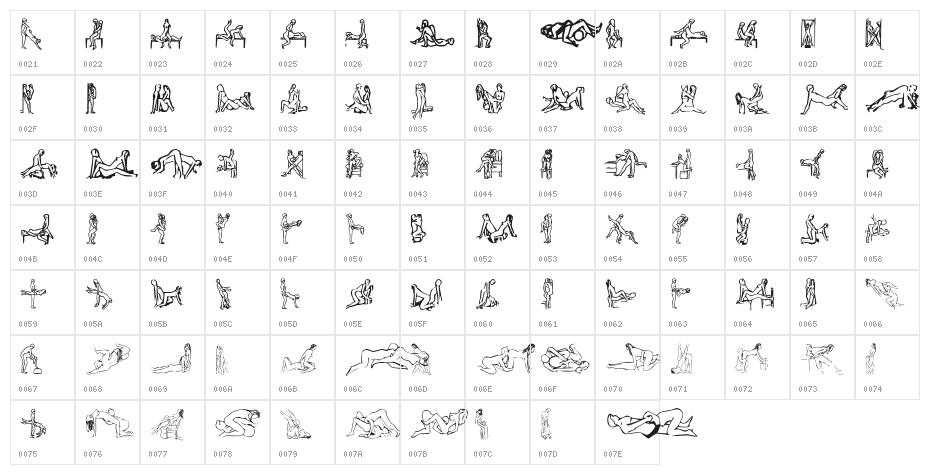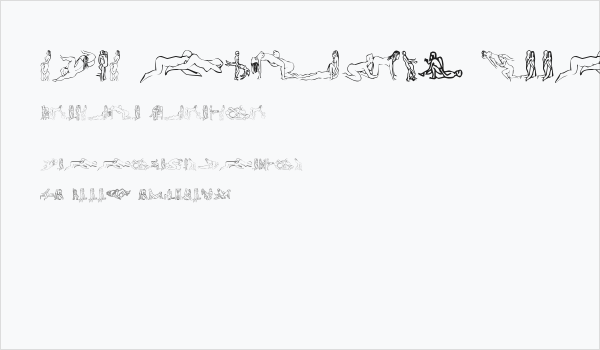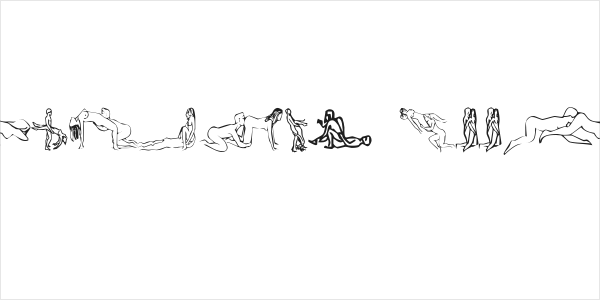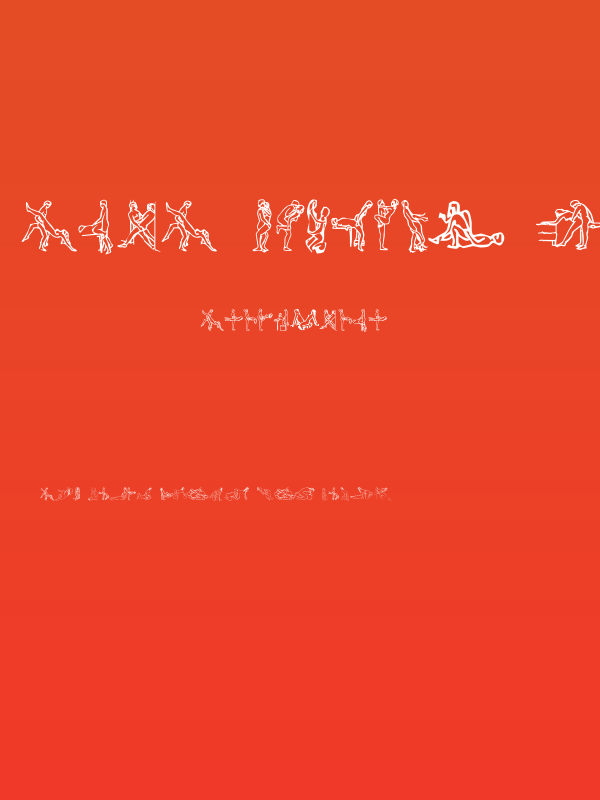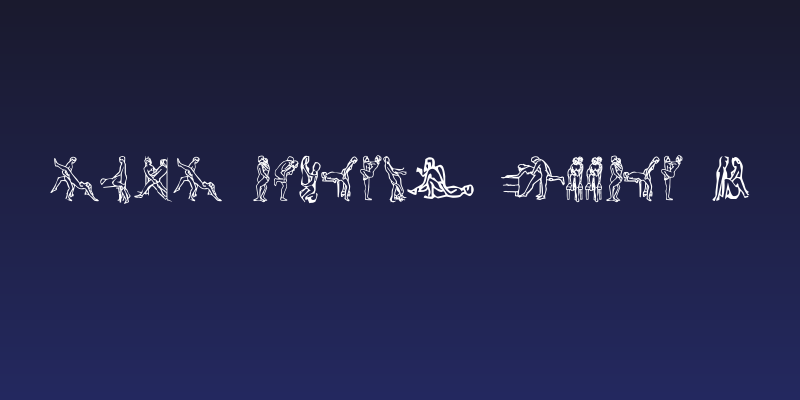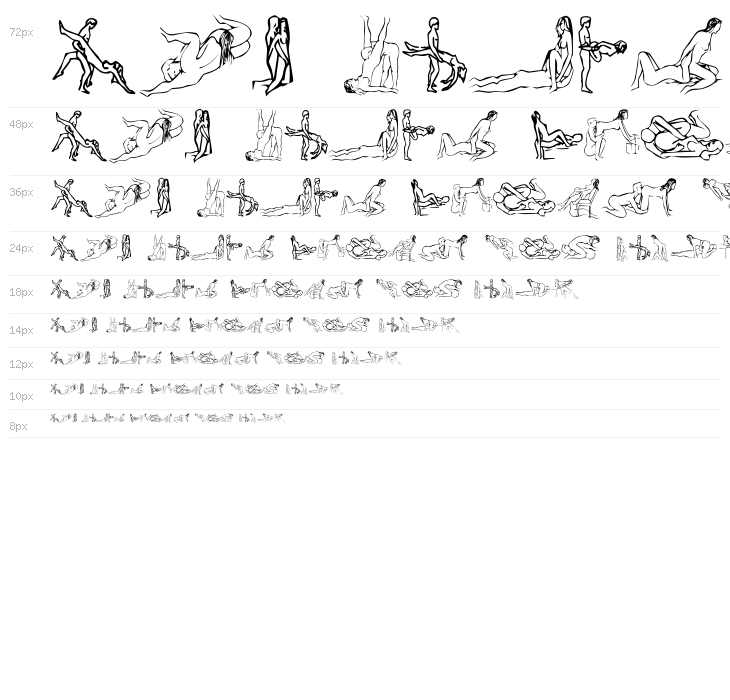
that luvin' feelin 1 Font
that luvin' feelin 1 Description
This set consists of highly stylized glyphs formed by abstract line drawings of human figures in various poses, replacing traditional letterforms and numerals with expressive, illustrative silhouettes. The forms are organic, fluid, and artistic, emphasizing gesture and movement rather than legibility.
Overall StyleDecorative, Artistic, Abstract
Use CaseLogos, Posters, Art projects, Display titles
Proposed ProjectsArt posters, album covers, avant-garde branding, editorial illustrations, adult-themed projects, creative event invitations.